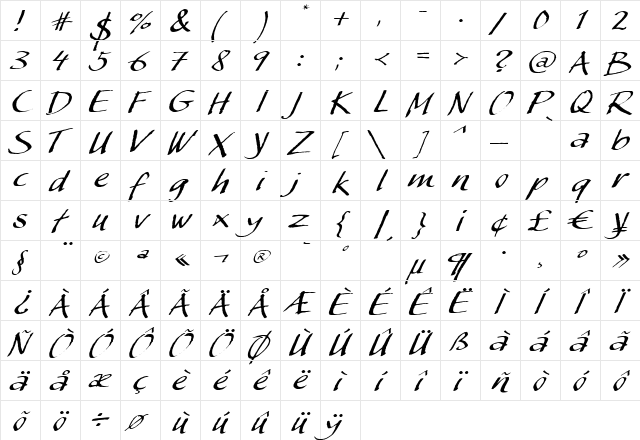
MyScript Plain Regular Font Preview
MyScript Plain Regular
MyScript Plain Regular Font Details
Design Context for MyScript Plain Typeface
MyScript Plain brings a calligraphic fluidity to the page — its connecting strokes and expressive curves give it an unmistakably human quality.
Font Pairing: Combine MyScript Plain with a simple geometric sans for maximum contrast — the tension between flowing curves and clean structure is a classic typographic pairing.
Pro Tip: Pair MyScript Plain with a clean sans-serif for supporting text. The contrast between fluid script and geometric structure creates an elegant typographic hierarchy.